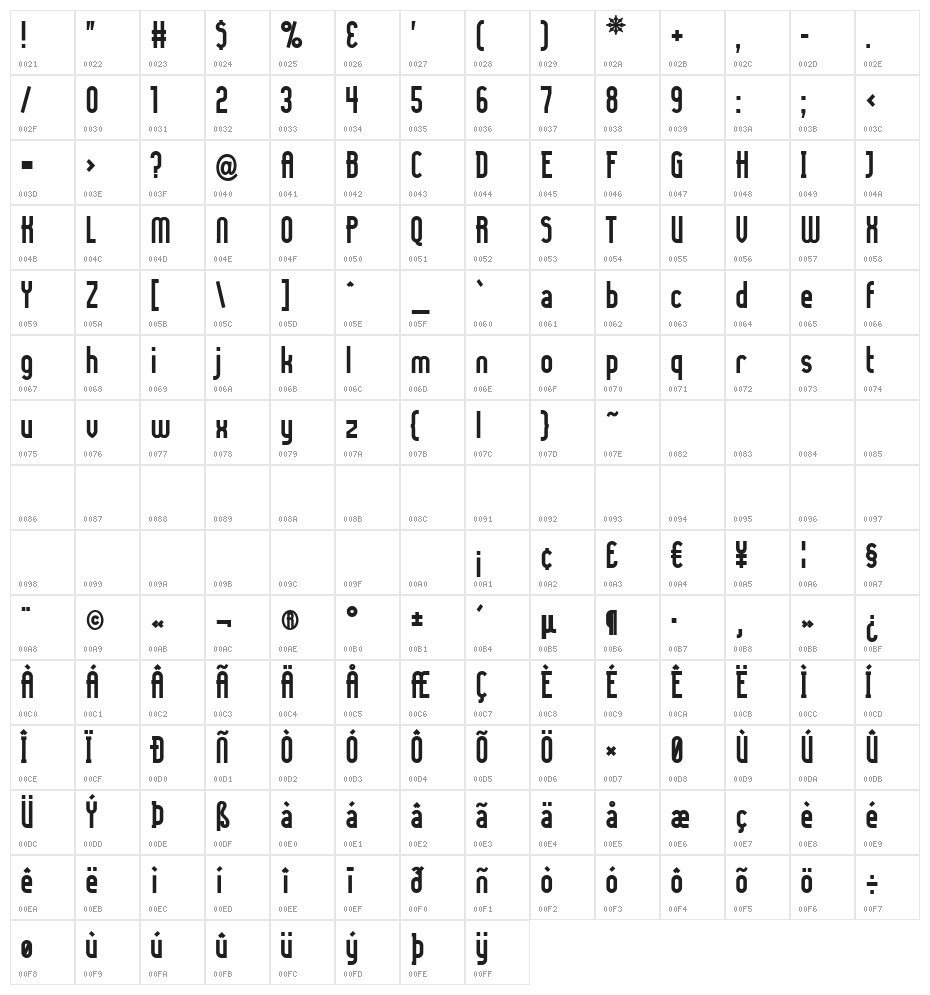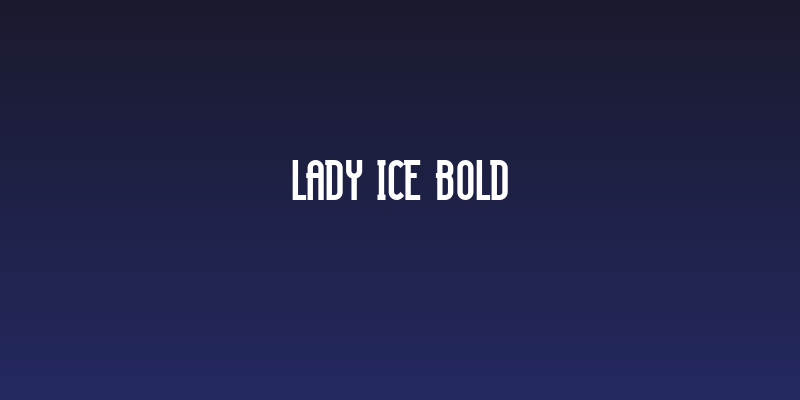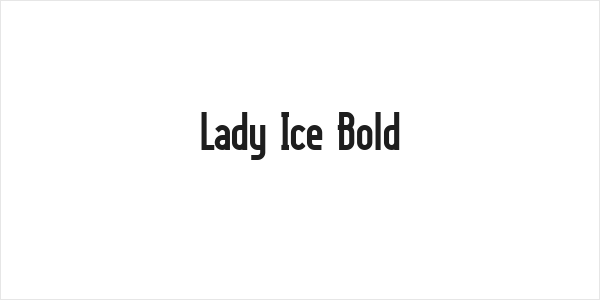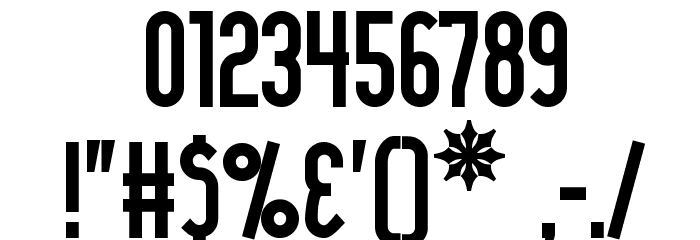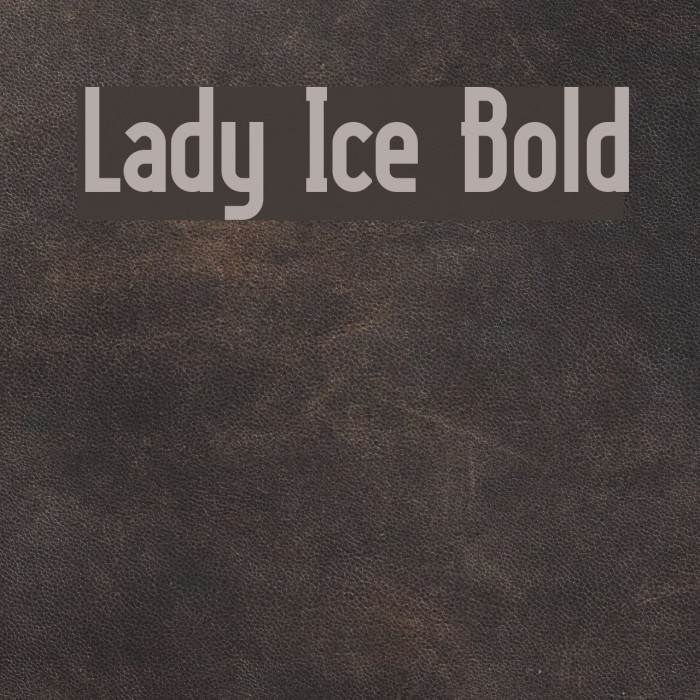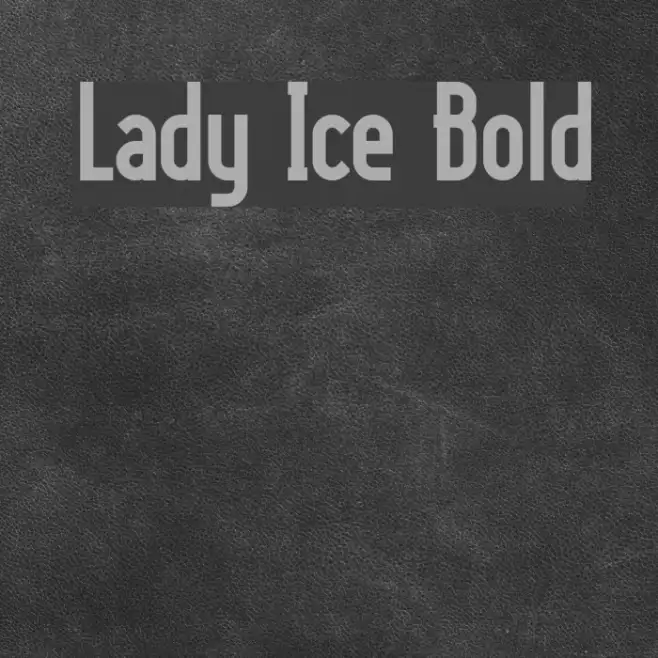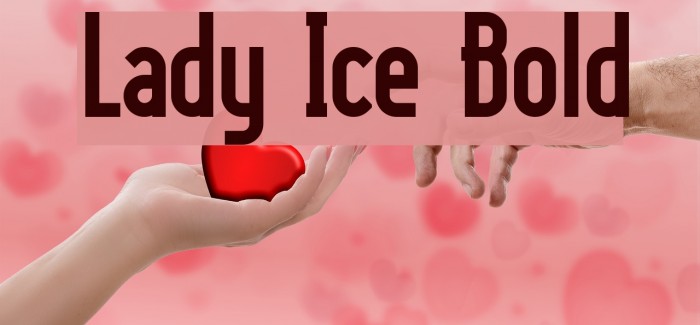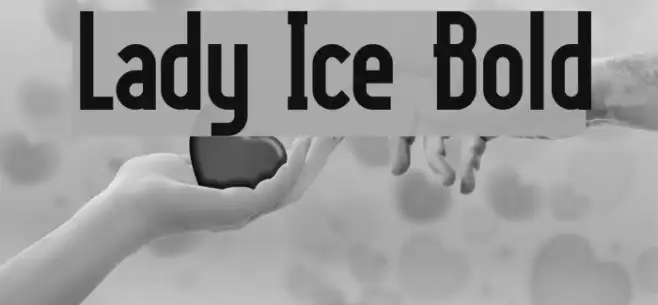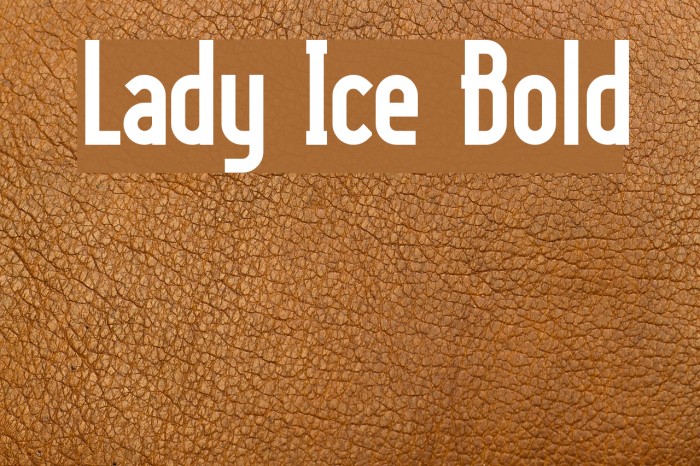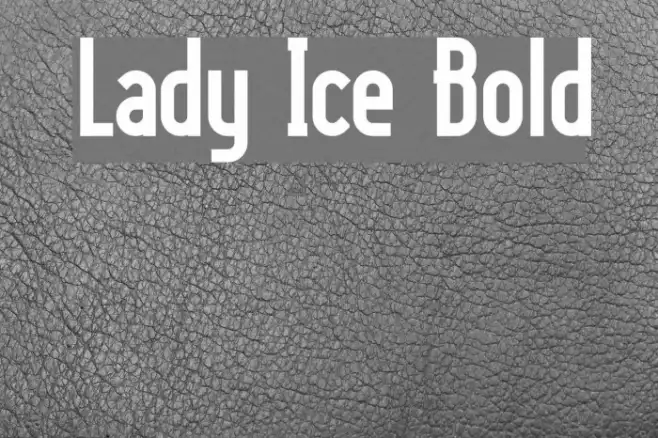
Lady Ice Bold Font
Lady Ice Bold Description
This font features a bold and geometric design with a strong presence. The characters are tall and narrow, giving it a condensed appearance. The uppercase letters have a uniform height, while the lowercase letters maintain a consistent style with rounded edges. The numbers are clear and legible, matching the overall boldness of the font. Special characters are distinct and well-integrated into the design. The font's modern and structured look makes it suitable for impactful headlines and branding projects.
| Proposed Projects | Ideal for branding, posters, headlines, and any project requiring a strong, modern typeface. |